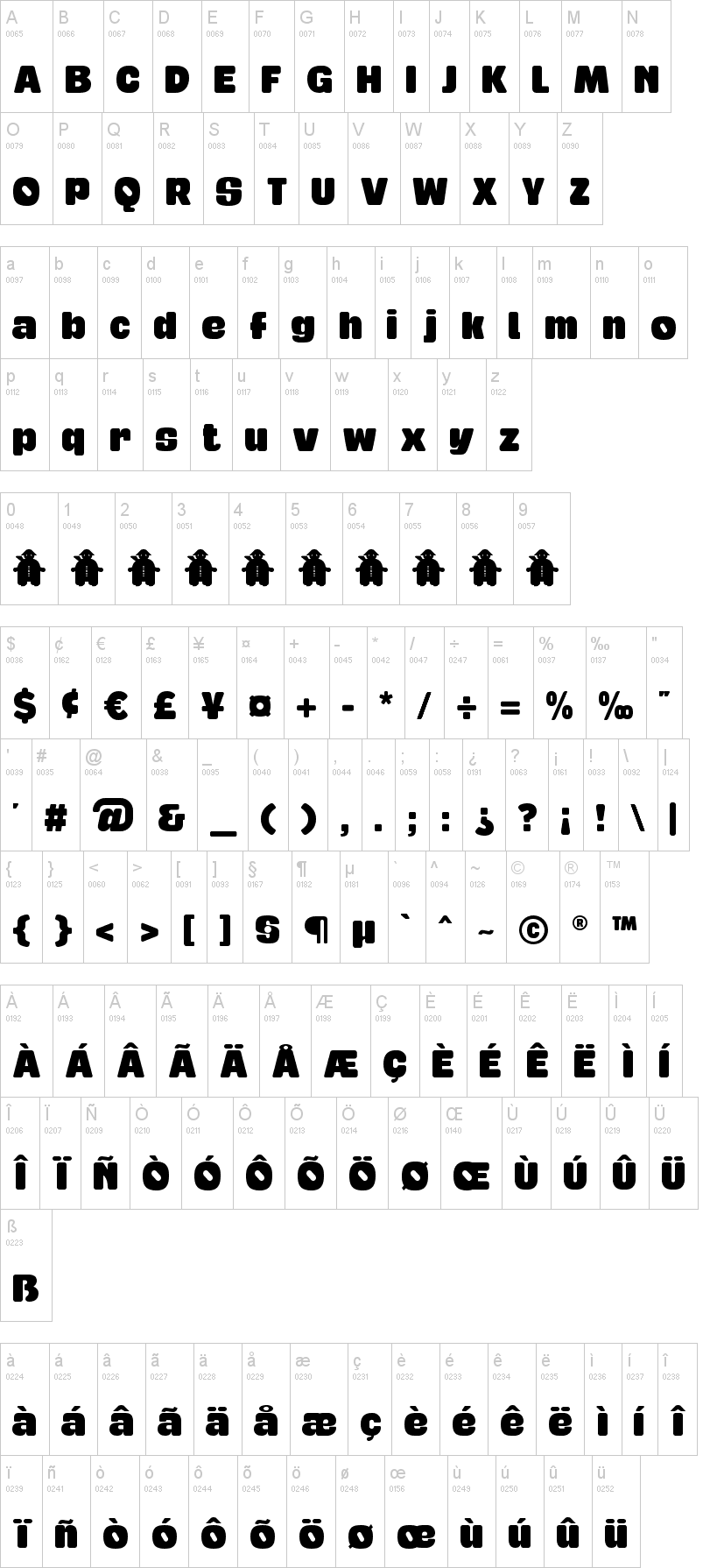
Note of the authorTabardo is a very thick, round display typeface with square proportions designed from Spain. Perfect for titles in editorial design and advertising.
Tipografía decorativa display de Palo Seco y proporciones cuadradas, muy gruesa y redondeada...